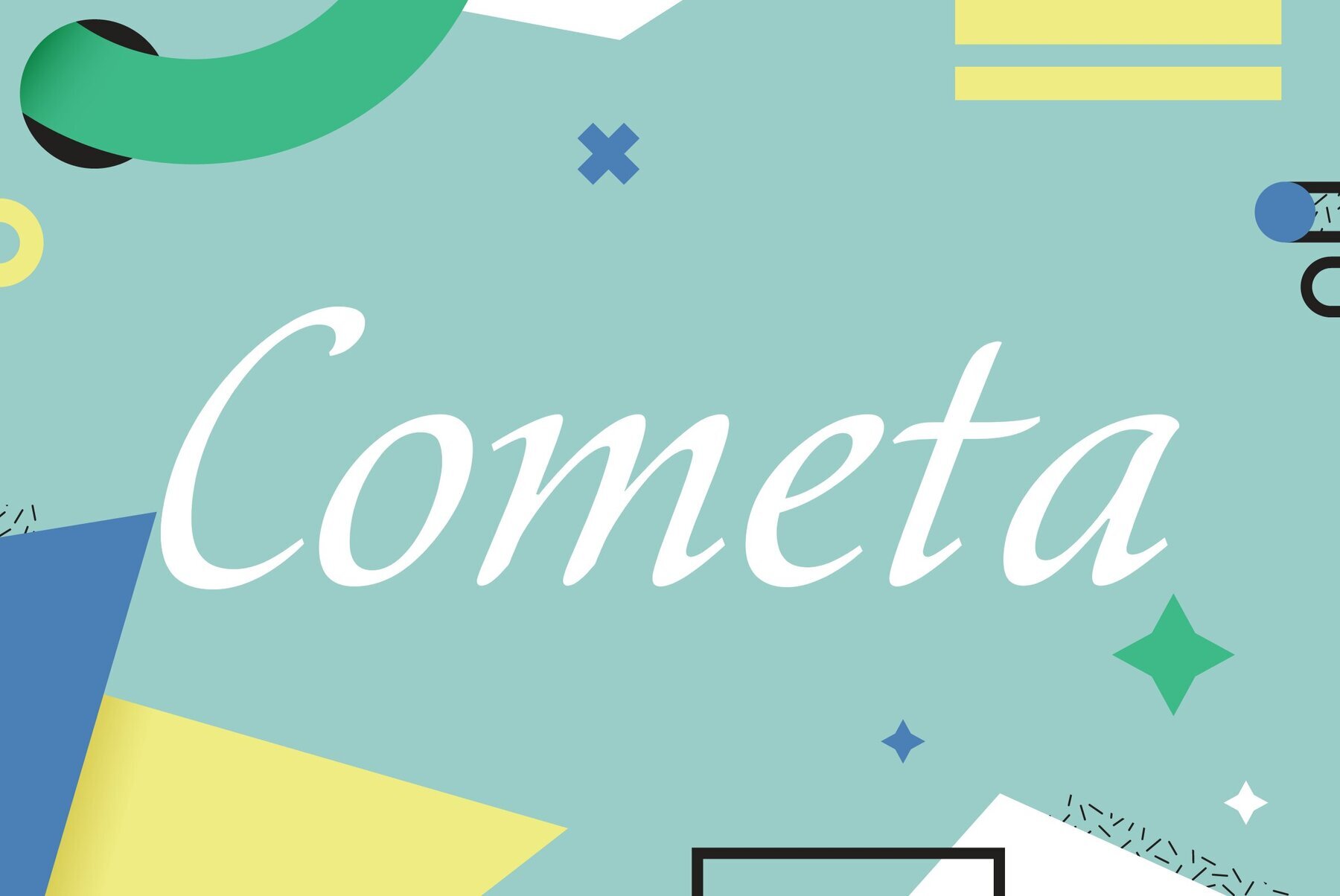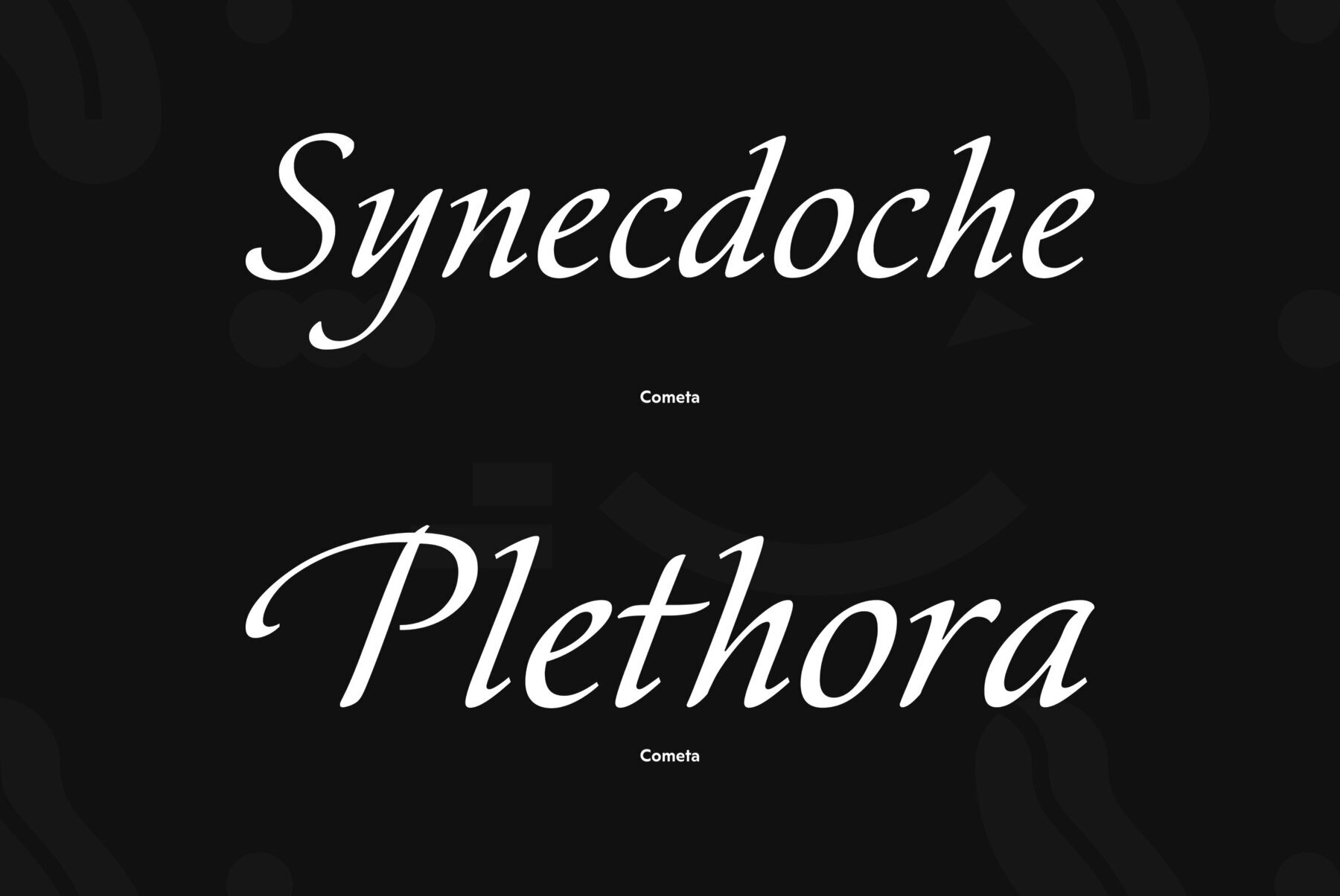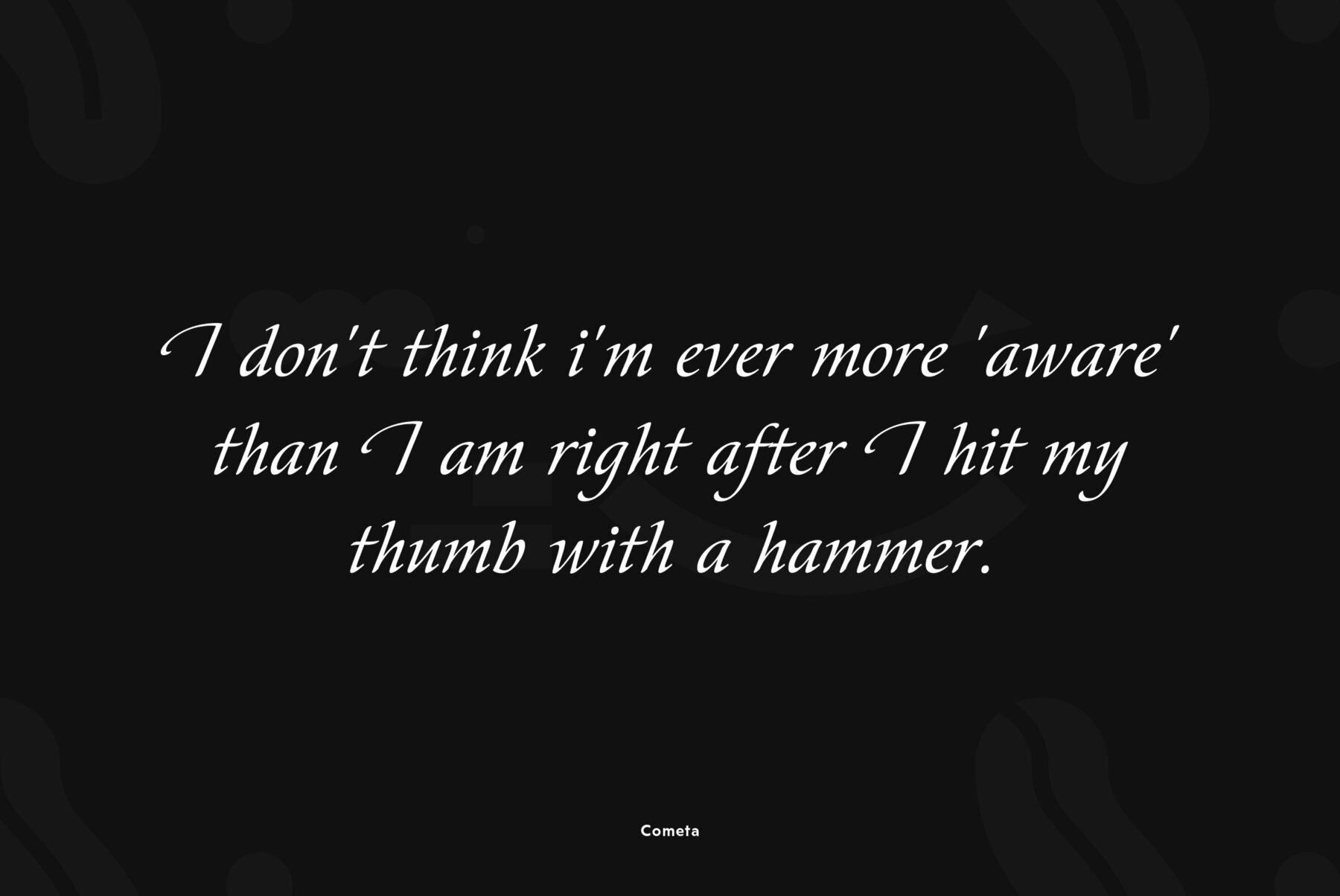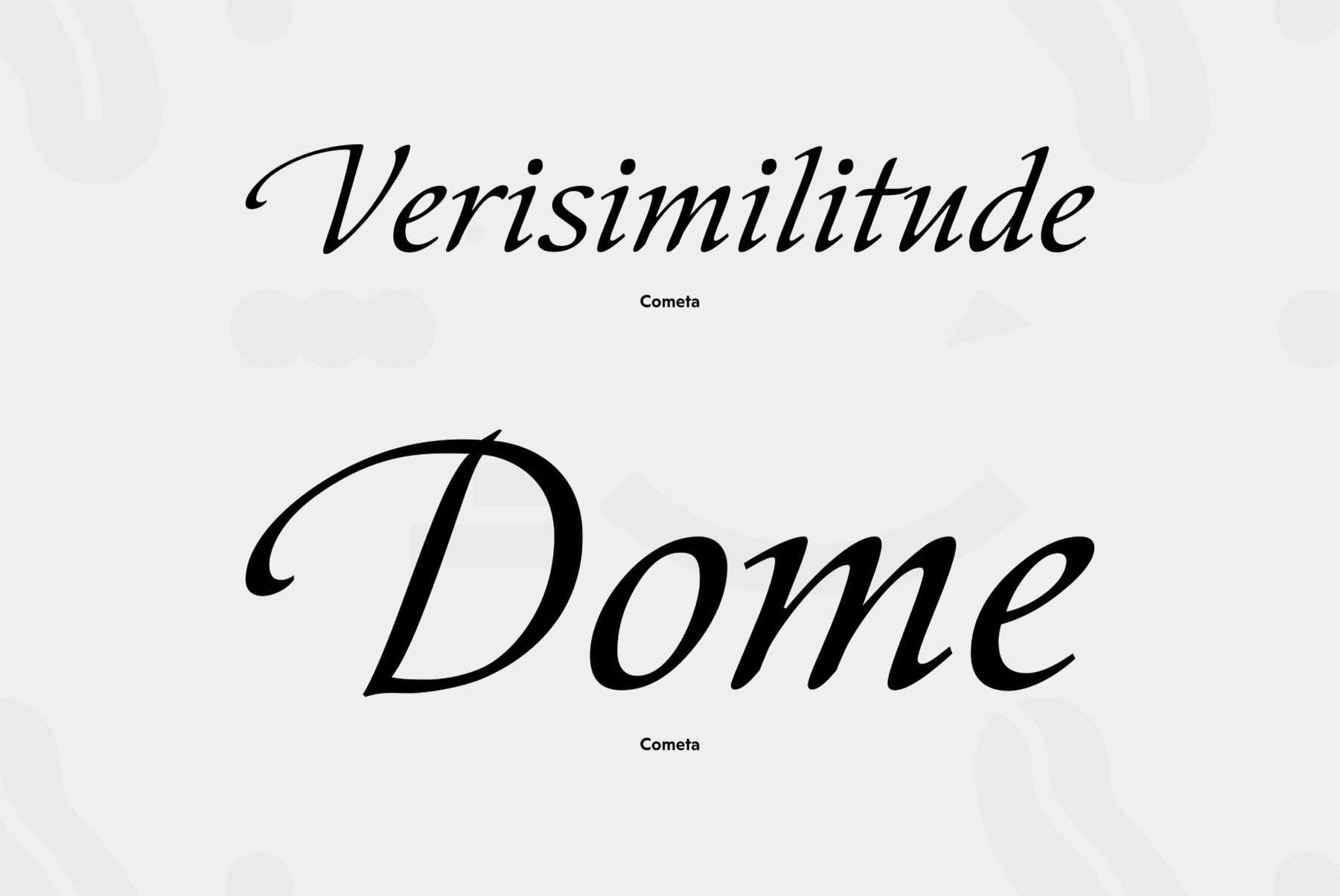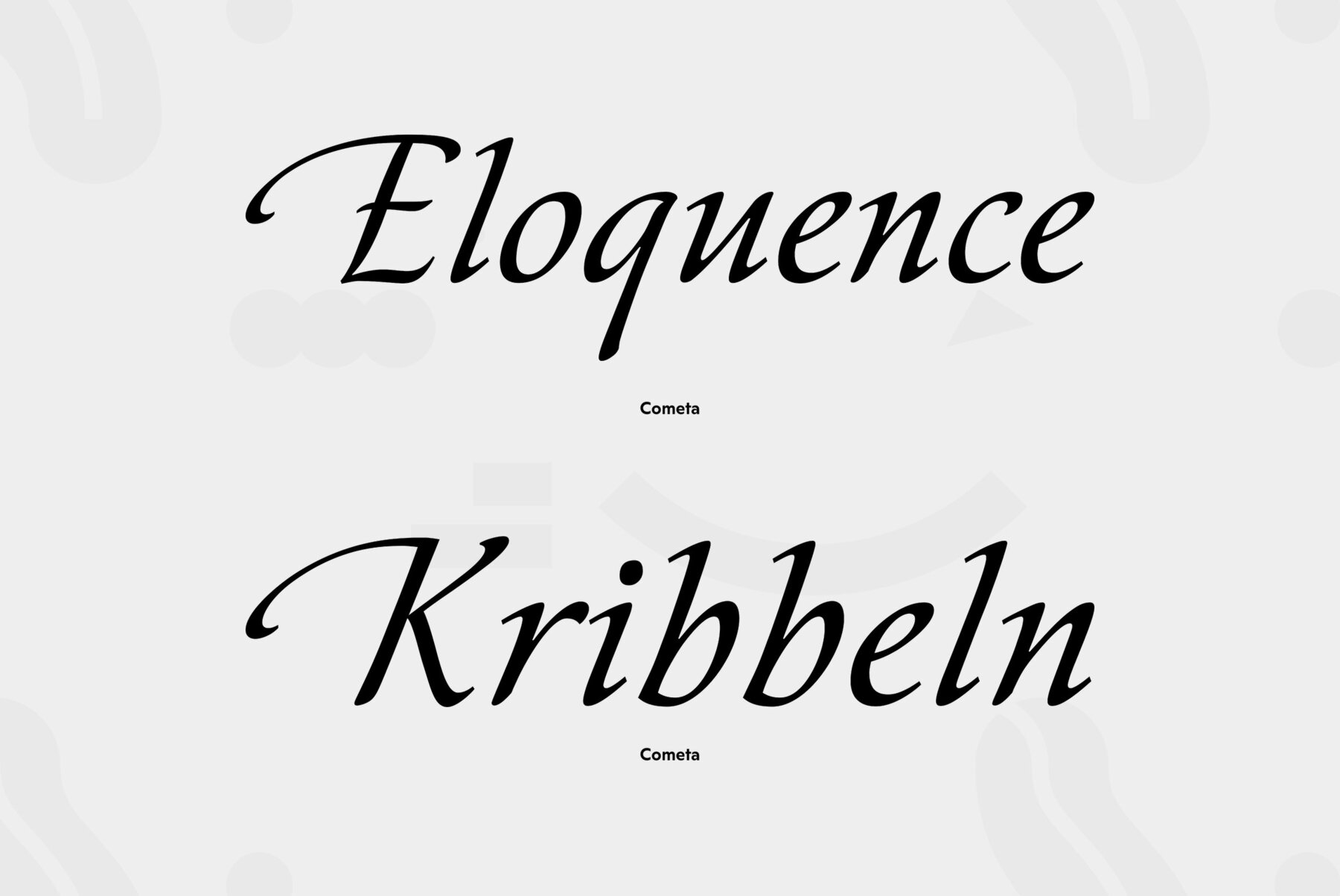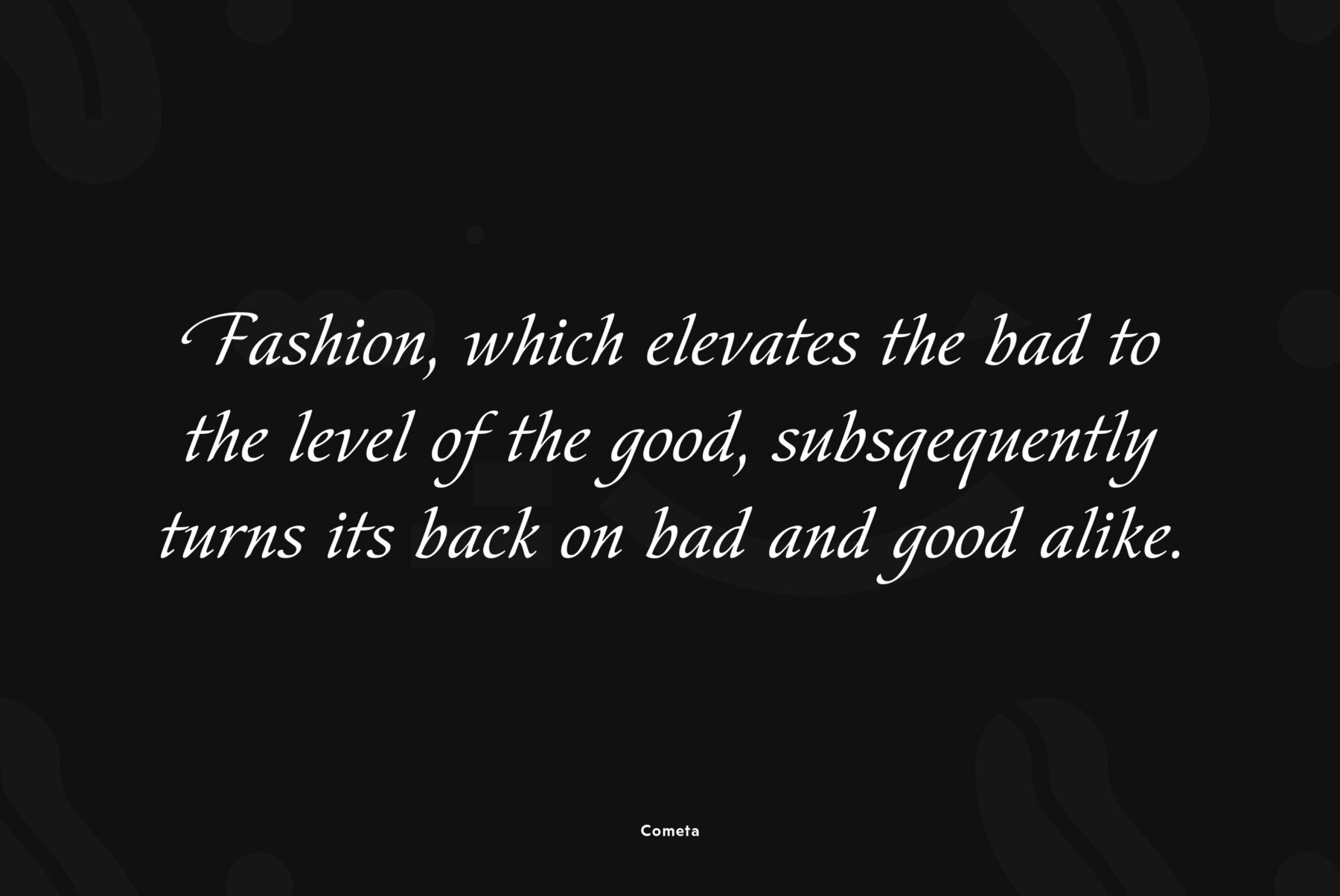
Typeface Cometa is a calligraphic script font for use in advertising and display typography. The first version was designed and released in a range of Cyrillic character set in 2003. Full multilingual version with support of Western and Eastern European languages was released by ParaType in 2012. Design by Natalia Vasilyeva.